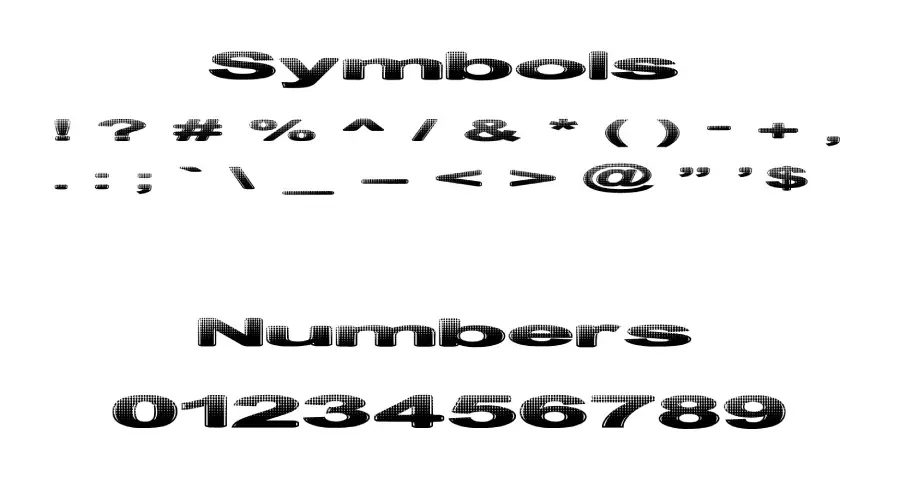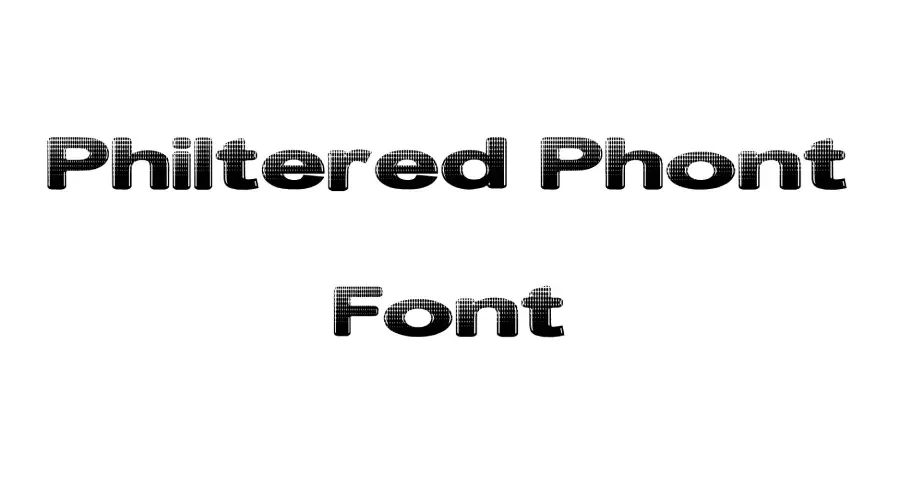
About Philtered Phont Font
If you are looking for a font that has a funky and groovy style, then check out the Philtered Phont font. Philtered Phont is a display font created by Gems Fonts in 1997. Ray Larabie was the designer of the original font that inspired it. The font has a retro and psychedelic look, with curved and distorted letters. The font also has a playful and quirky vibe, as it resembles cartoon and comic fonts. Philtered Phont is a fun font that can be used for various purposes, such as logos, headlines, posters, flyers, and more. The font is free for personal and commercial use, and you can download it from the creator’s website.
Phont Usage
Philtered Phont is a versatile font that can be used in a variety of contexts. Its playful yet elegant design makes it suitable for everything from logos and branding to social media posts and website design. Whether you’re creating a poster for a music festival or designing a children’s book. It can add creativity and fun to your project.